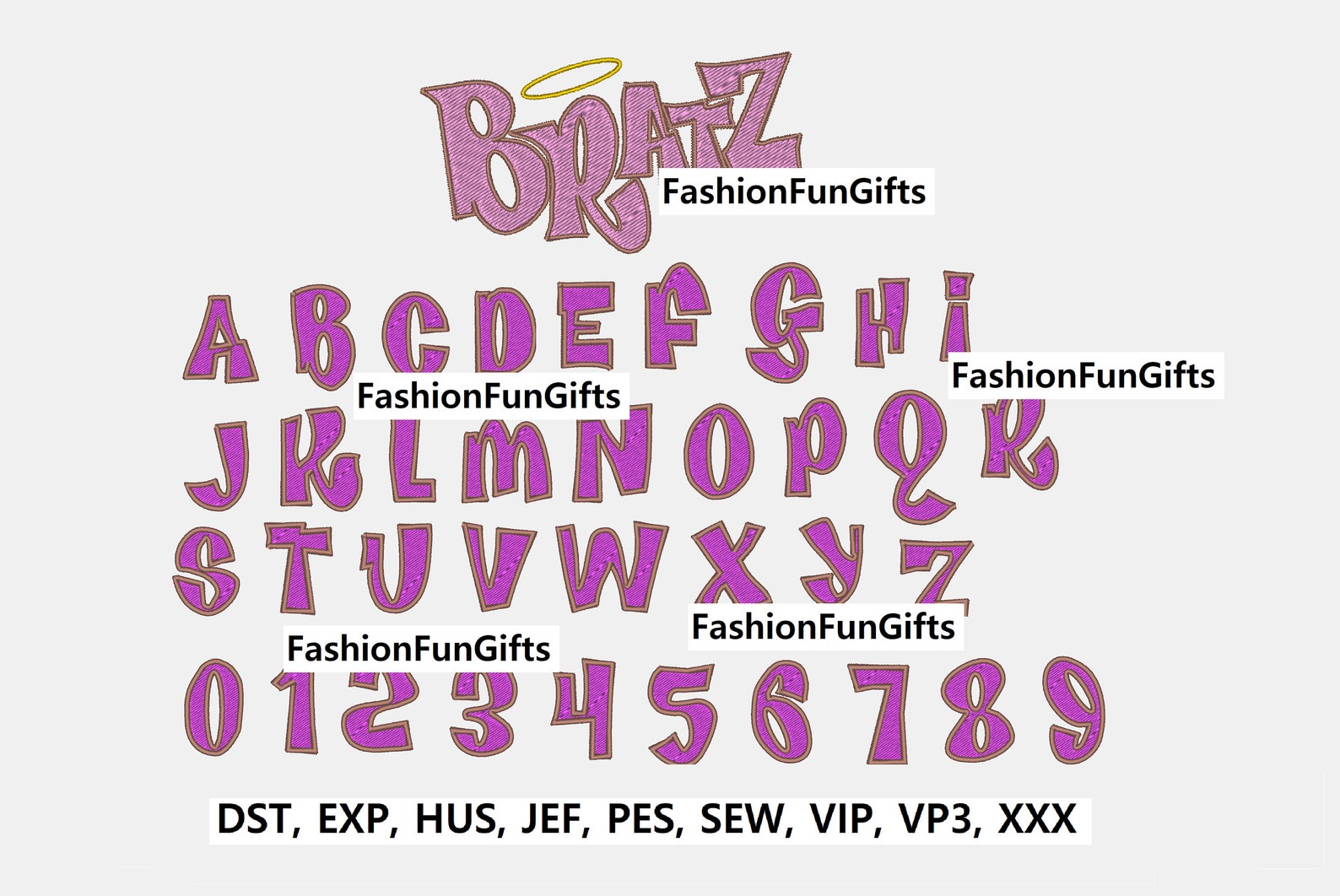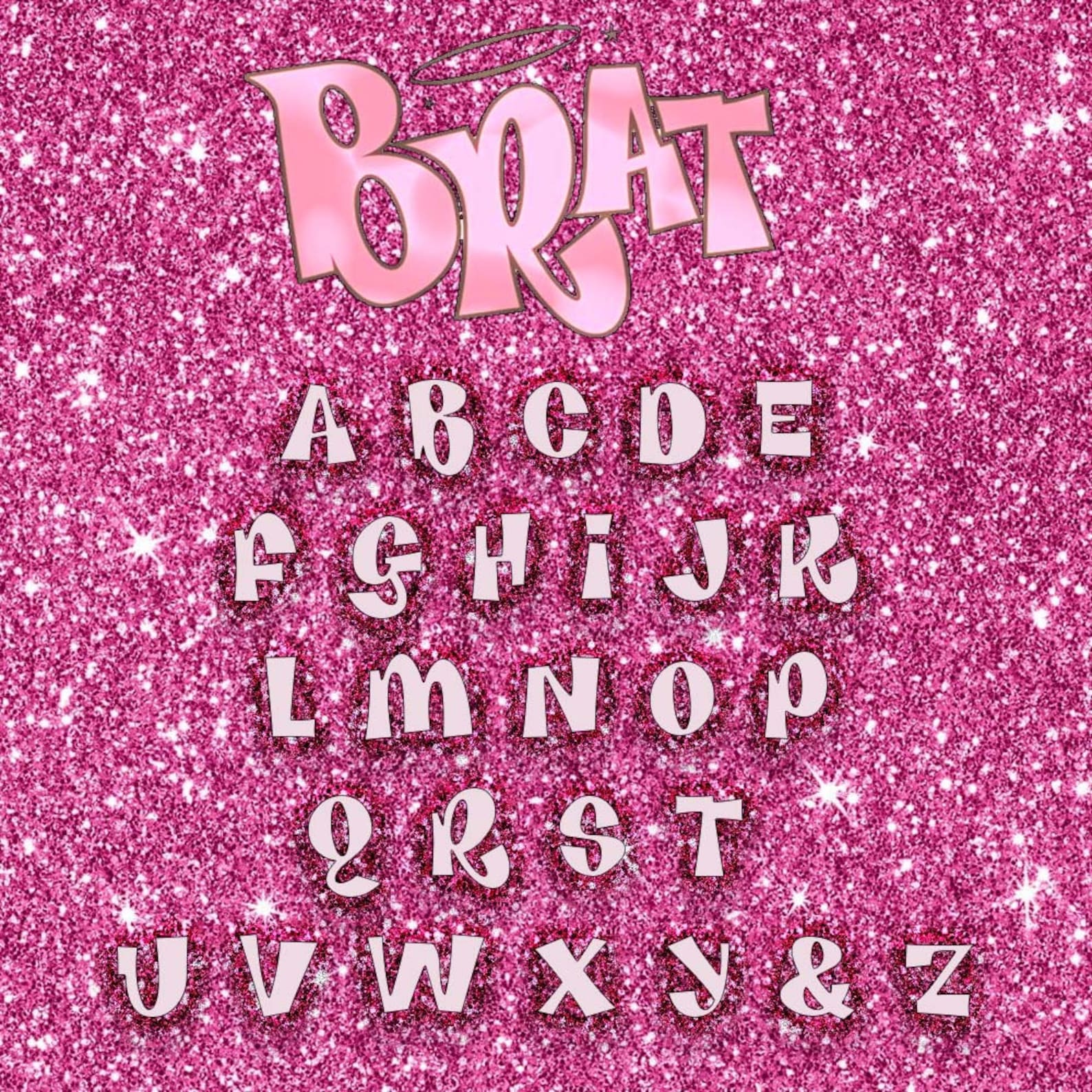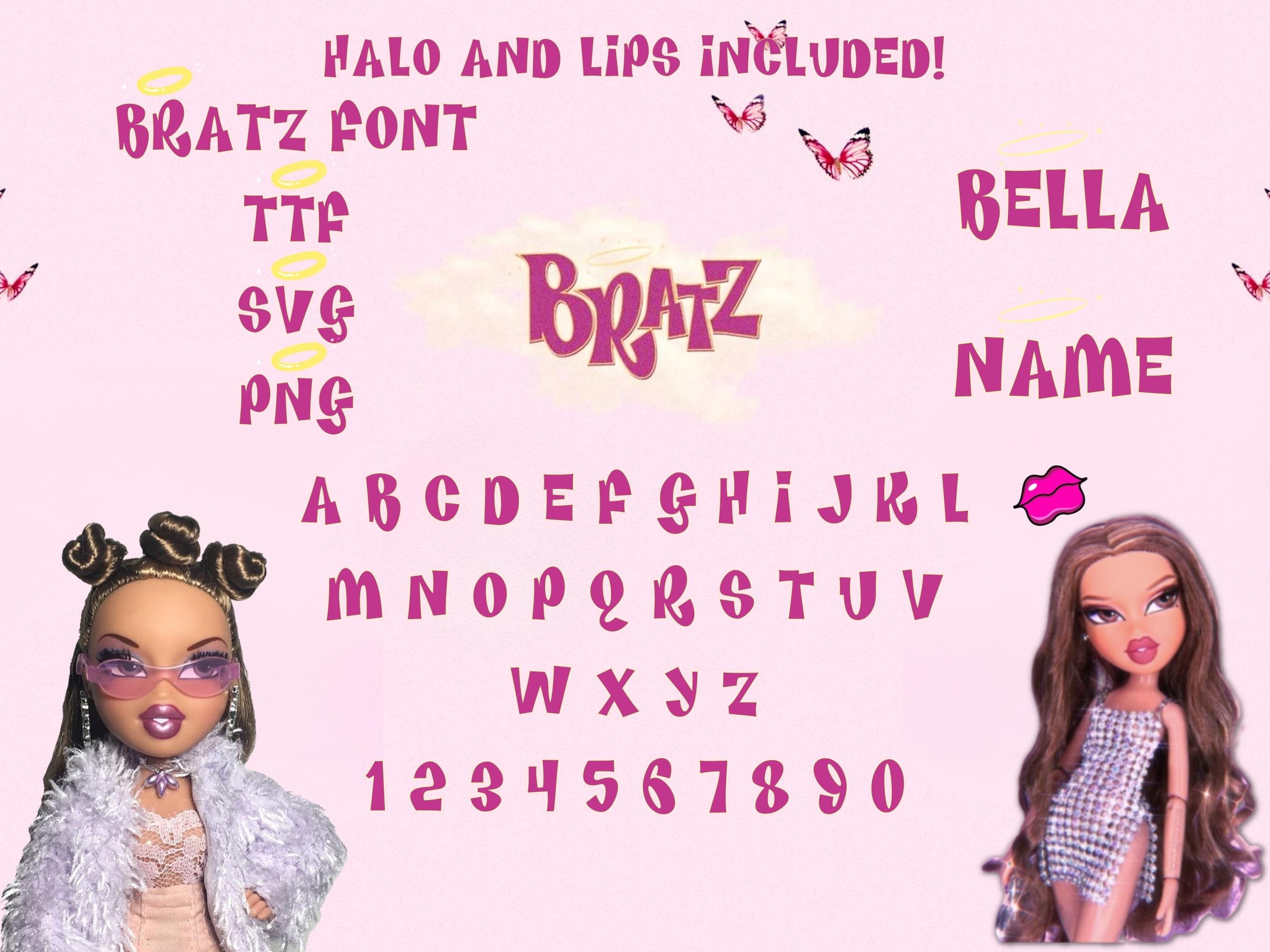
Bratz Font Name
Bratz Font Name - What is the bratz font? The bratz font refers to the customized typeface used in the bratz logo, often linked to the “house of fun” font by.
What is the bratz font? The bratz font refers to the customized typeface used in the bratz logo, often linked to the “house of fun” font by.
The bratz font refers to the customized typeface used in the bratz logo, often linked to the “house of fun” font by. What is the bratz font?
What Is The Bratz Font?
The bratz font refers to the customized typeface used in the bratz logo, often linked to the “house of fun” font by.